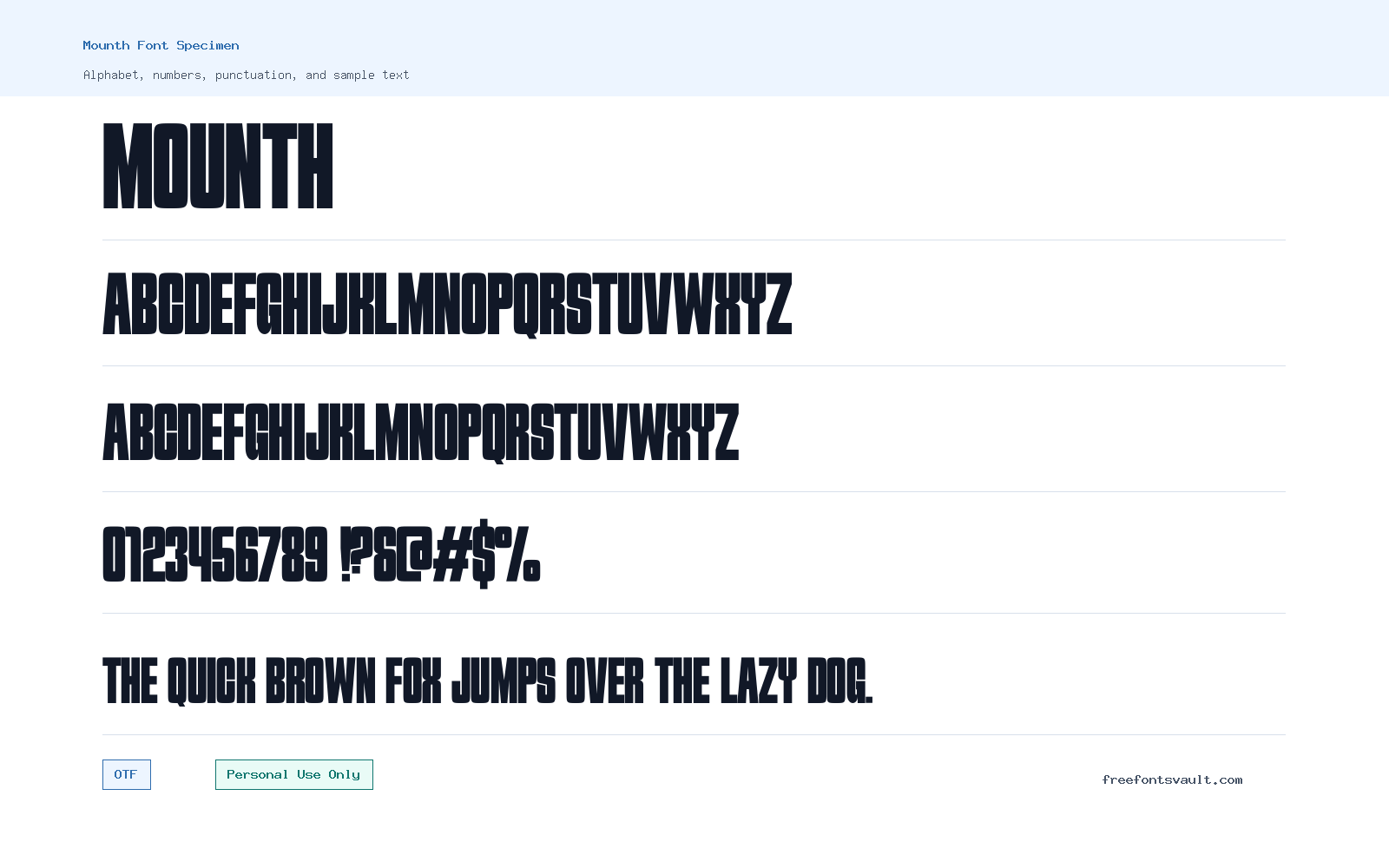
Mounth
Mounth font preview showing the family name
Mounth Font
Mounth font specimen showing alphabet, numbers, and sample text
• Designer Iswan
• Foundry Funtype Co.
Mounth font.
Mounth is a sans serif font family with a Regular OTF file for personal-use projects. It is a good font to test when you need clean lettering for short text, display previews, and simple design mockups.
About Mounth Font
Mounth is listed as a sans serif font by Iswan from Funtype Co. The download contains a Regular style in OTF format, so it should be easy to install in most modern design apps and operating systems. Because only one style is included, it is best treated as a single-weight display or layout font rather than a full text family with bold, italic, and extended weight options.
• Sans serif Regular style
• Single-weight family for simple testing
• Suitable for short text previews and display layouts
• Headlines and title text
• Posters, flyers, and social media graphics
• Logo mockups and name previews for personal projects
• Website or app layout mockups where a clean sans serif is needed
Mounth is credited to designer Iswan and foundry Funtype Co.
Who designed Mounth?
The font is credited to Iswan, with Funtype Co. listed as the foundry.